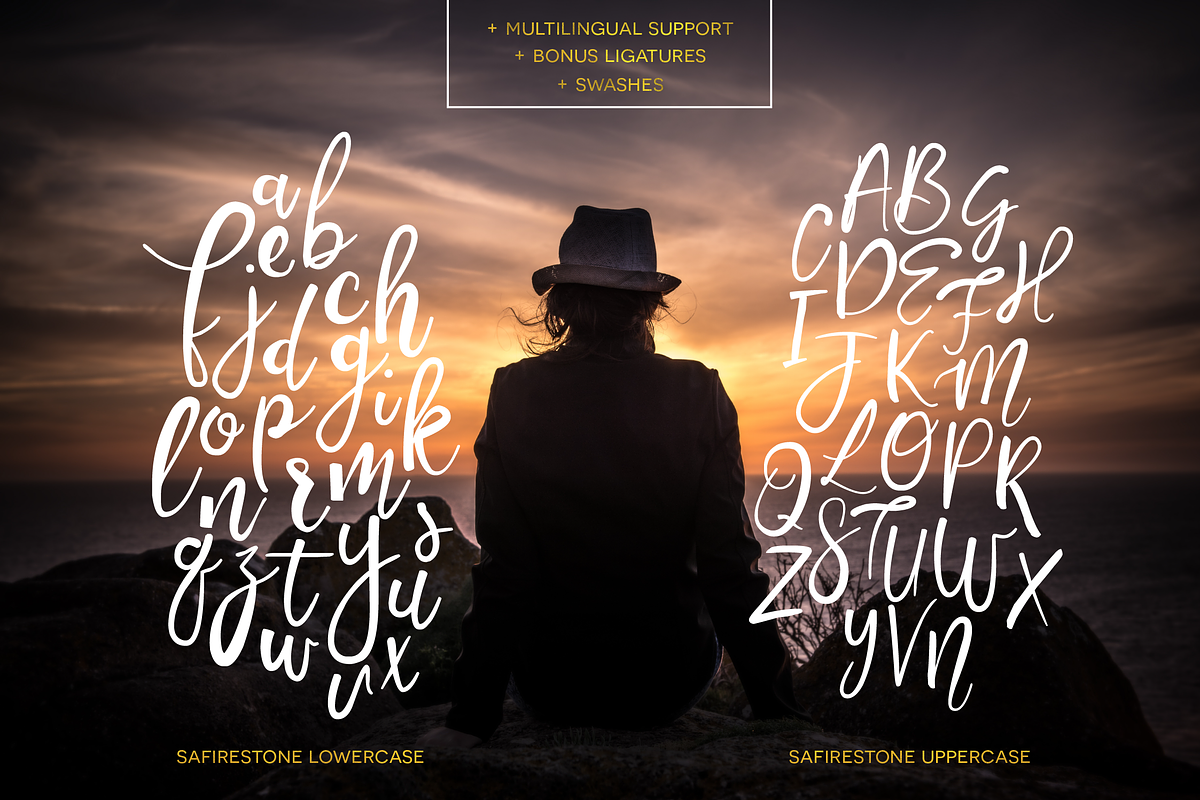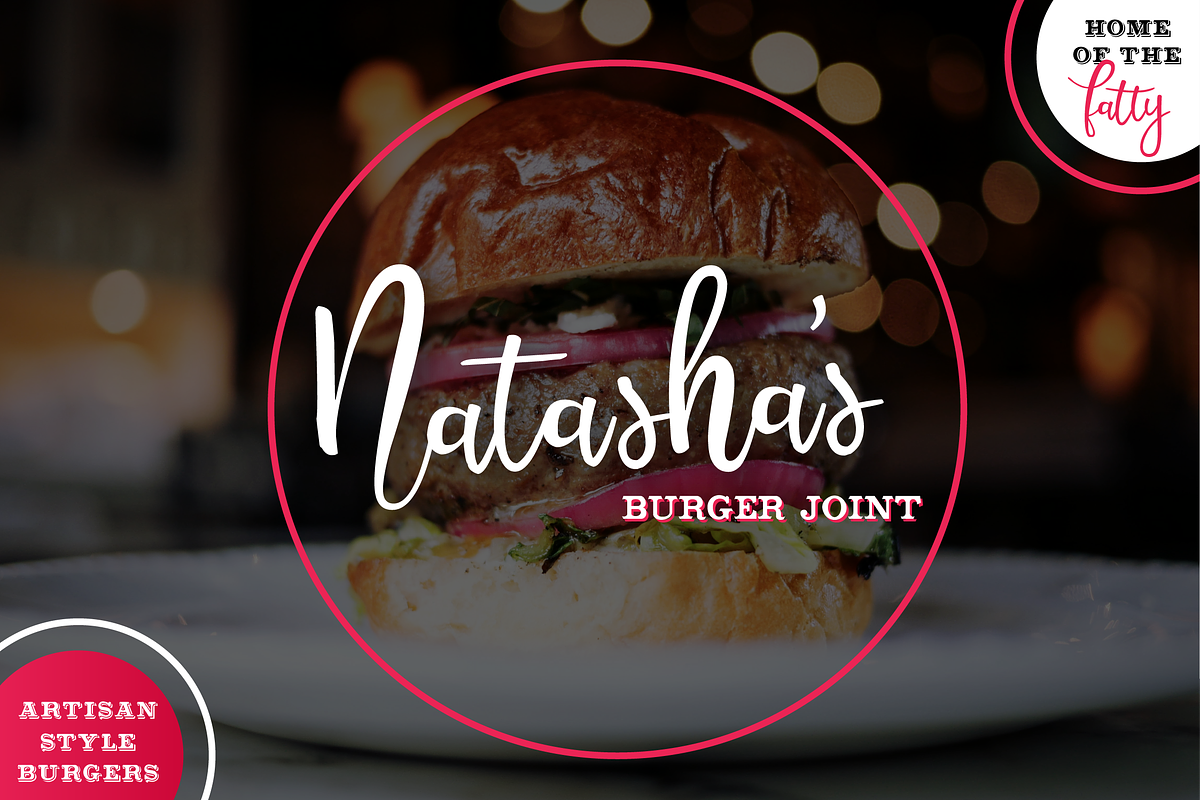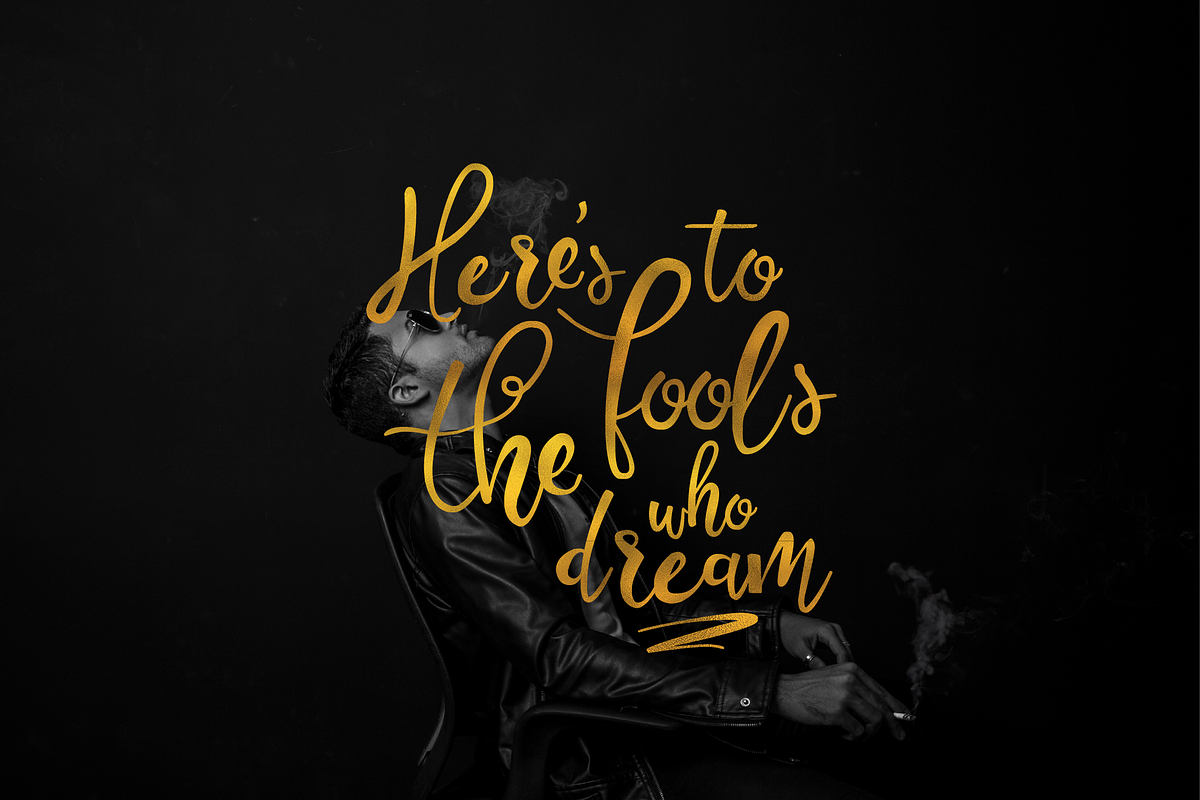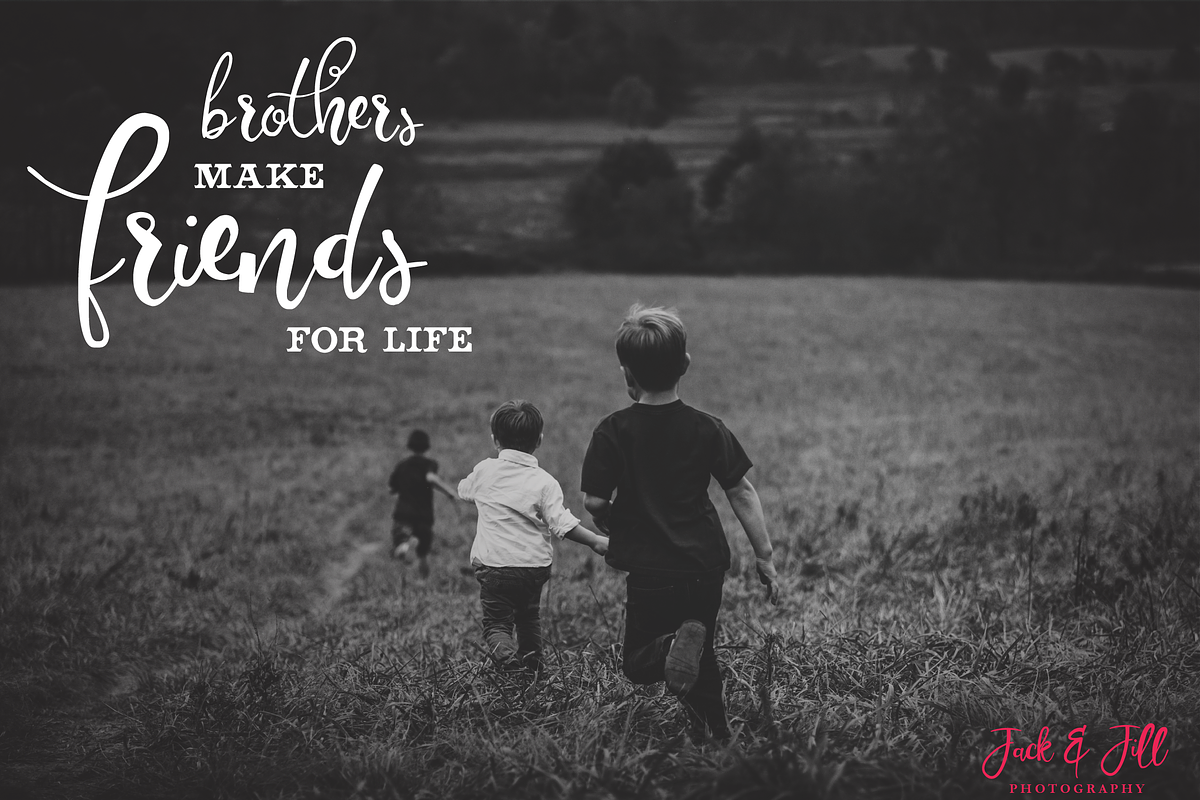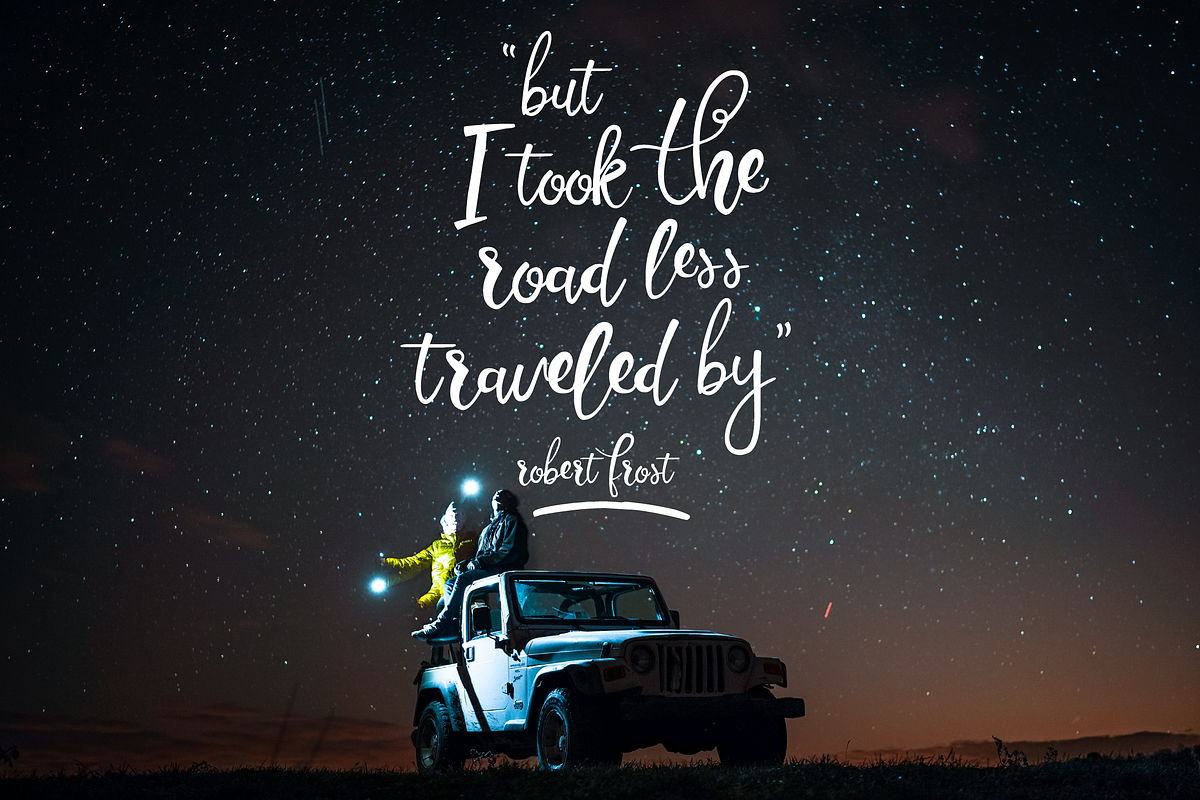
Safirestone Font + Extras
Safirestone Font + Extras by Flycatcher Design is a font selected for branding, posters, packaging, typography.
Why Safirestone Font + Extras is worth a look
Safirestone Font + Extras by Flycatcher Design fits naturally into Branding, posters, packaging, typography.